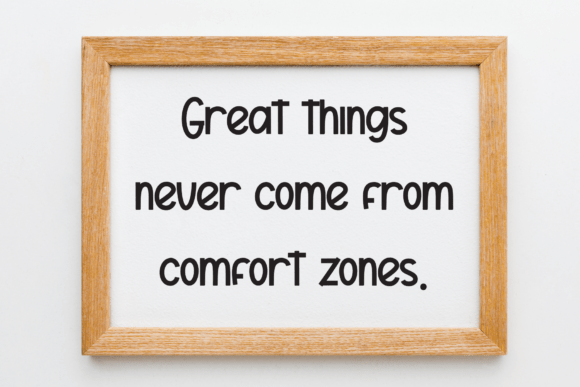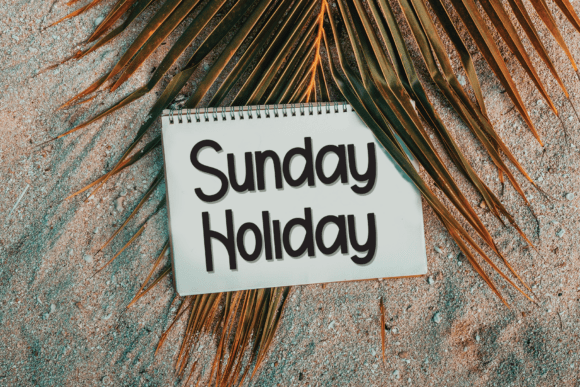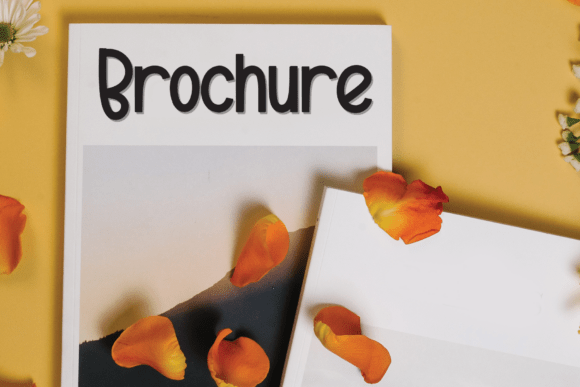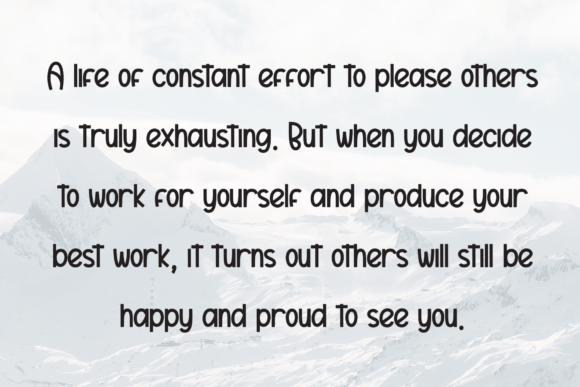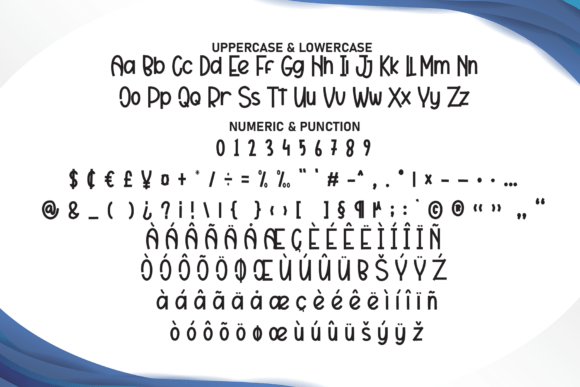
Introducing Background Font: The Perfect Blend of Simplicity and Friendliness
In the world of typography, fonts play a crucial role in conveying the tone and personality of a brand or design. When it comes to creating a lasting impression, the right font can make all the difference. This is where Background Font comes in – a casual and neat display font that combines simplicity with a friendly, approachable vibe.
Background Font boasts clean lines, balanced letterforms, and subtle rounded edges that capture the essence of modern handwritten typography with a polished finish. The font’s design is characterized by:
- Clean Lines: The font features clean and precise lines that give it a crisp, modern look.
- Balanced Letterforms: Each letterform is carefully crafted to ensure balance and harmony, making the font easy to read and visually appealing.
- Subtle Rounded Edges: The subtle rounded edges add a touch of warmth and friendliness to the font, making it perfect for designs that require a approachable tone.
Versatility and Applications
Background Font is an incredibly versatile font that can be used in a variety of design applications, including:
- Branding: Use Background Font to create a strong brand identity that exudes warmth and approachability.
- Headlines: The font’s clean lines and balanced letterforms make it perfect for headlines that require a clear and concise message.
- Packaging: Add a touch of elegance and sophistication to your packaging designs with Background Font.
- Digital Content: Use the font to create engaging and readable digital content that resonates with your audience.
Why Choose Background Font?
So, what sets Background Font apart from other fonts? Here are just a few reasons why designers and crafters love this font:
- Warm and Inviting: The font’s subtle rounded edges and balanced letterforms create a warm and inviting tone that’s perfect for designs that require a friendly approach.
- Crisp Structure: The font’s clean lines and precise structure ensure clarity and readability, making it perfect for a variety of design applications.
- Versatile Style: Background Font is incredibly versatile, making it suitable for a range of design styles and applications.
Tips for Using Background Font
To get the most out of Background Font, here are a few tips to keep in mind:
- Experiment with Font Sizes: Background Font looks great in a variety of font sizes, from large headlines to smaller body text.
- Pair with Other Fonts: Try pairing Background Font with other fonts to create a unique and visually appealing typography combination.
- Use in Combination with Images: The font’s clean lines and balanced letterforms make it perfect for use in combination with images and graphics.
In conclusion, Background Font is a versatile and stylish display font that’s perfect for designers and crafters looking to add a touch of warmth and approachability to their designs. With its clean lines, balanced letterforms, and subtle rounded edges, this font is sure to make a lasting impression. Whether you’re working on a branding project, creating headlines, or designing packaging, Background Font is an excellent choice.